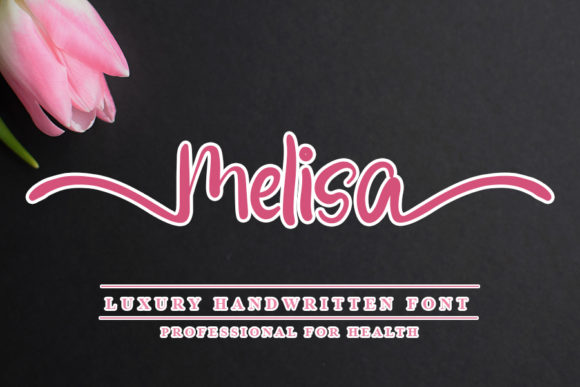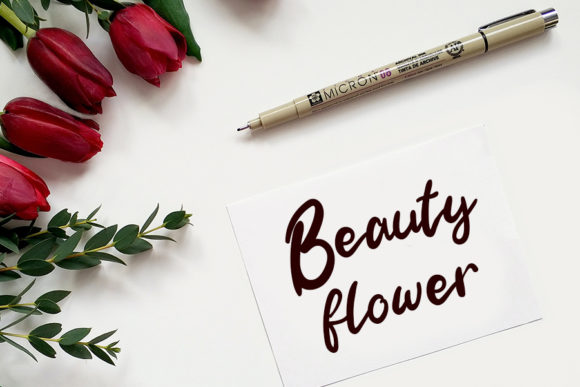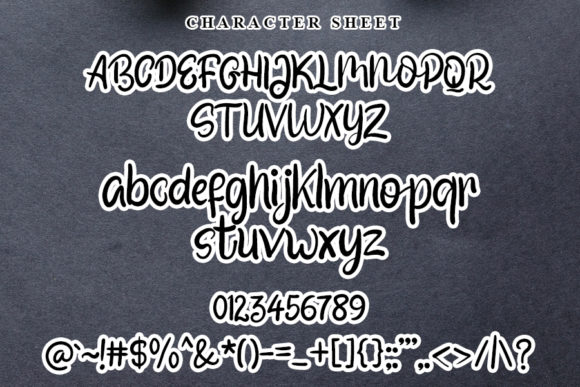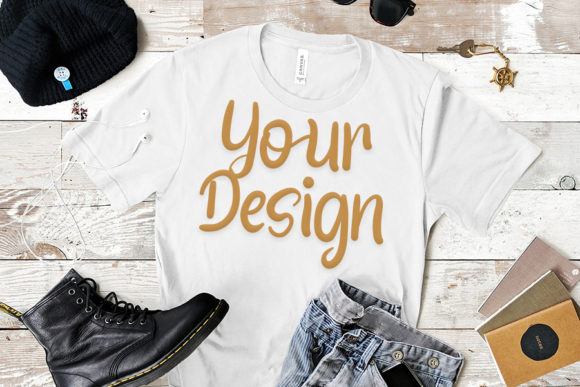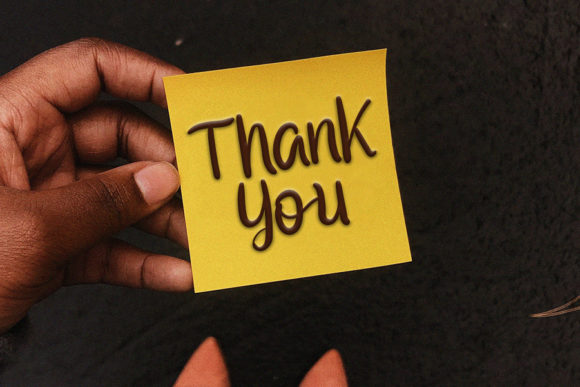
Melisa Font
About Melisa Font
Melisa is a sweet handwritten font, featuring a trendy style. Fall in love with its delicate flow and use it to create gorgeous wedding invitations, beautiful stationary art, eye-catching social media posts, and much more!